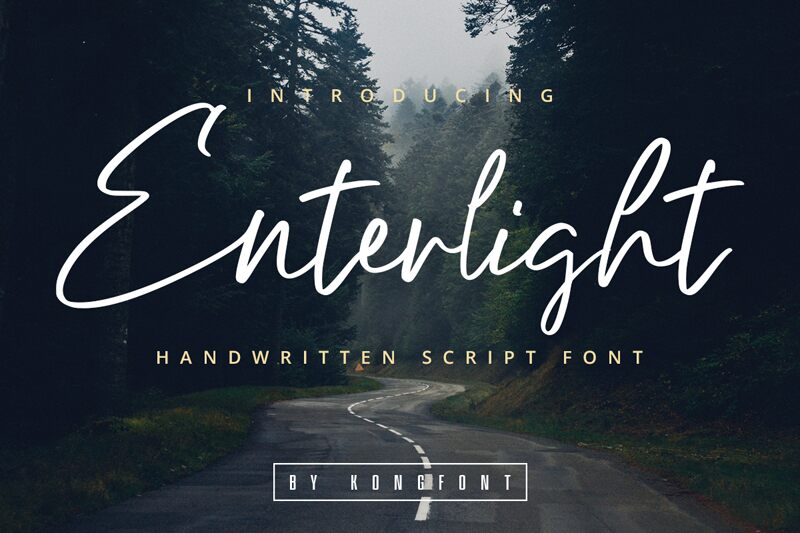
Enterlight font is a light handwritten font designed by Kong Font. The flowing handwritten characters of this elegant typeface has a natural handwriting quality that makes any text appear more personal and expressive. Although the weight is thin, the font still manages to be well-visible and legible for the reader while its unique character is able to stand out.
This free handwritten font can bring an artistic touch to multiple branding designs such as fashion labels, beauty product packages, magazines, catalogs, social media posts or even advertising. Contents such as book titles and quotes can also use its fluid letters for a more modern outcome.